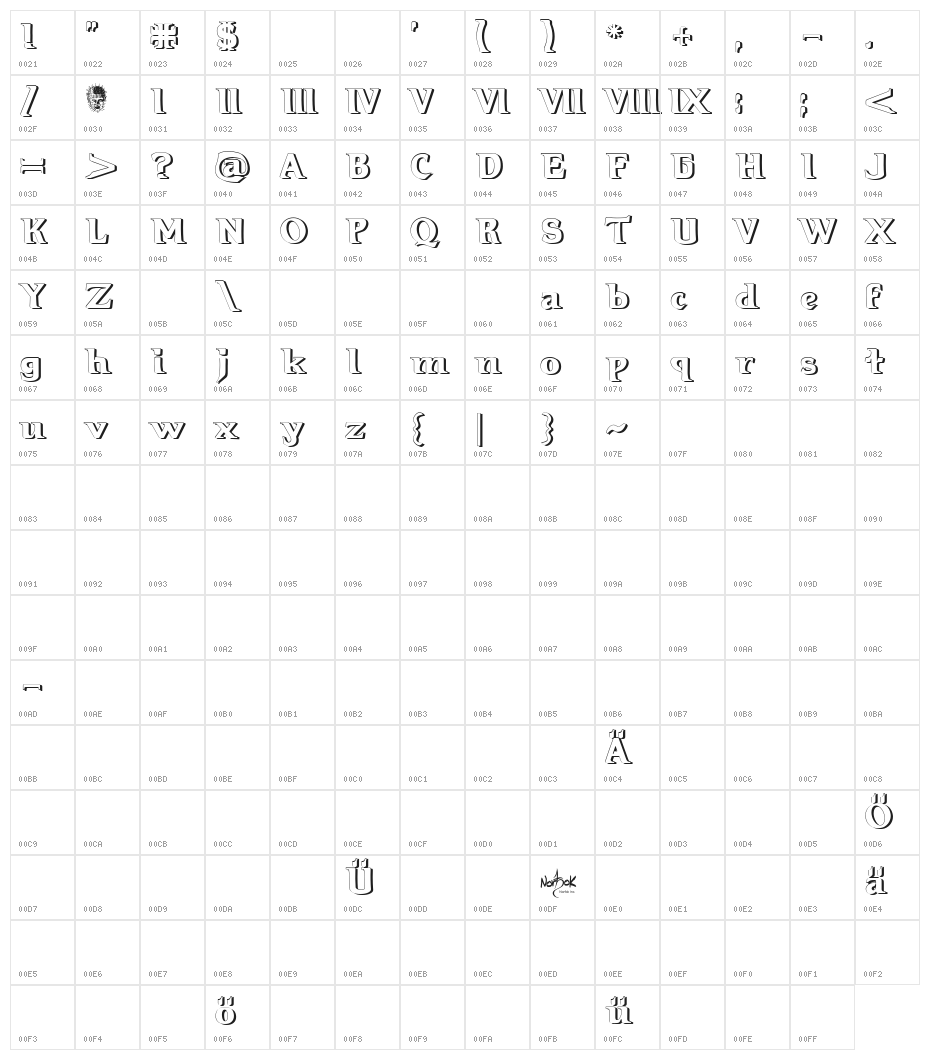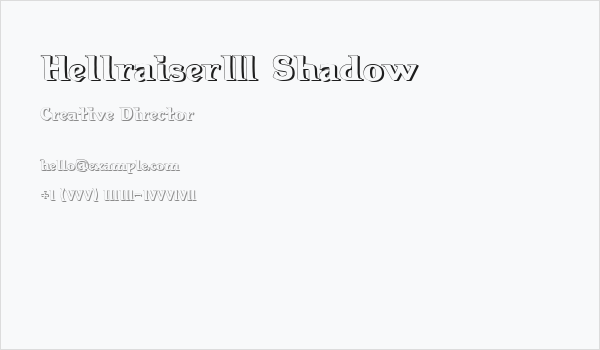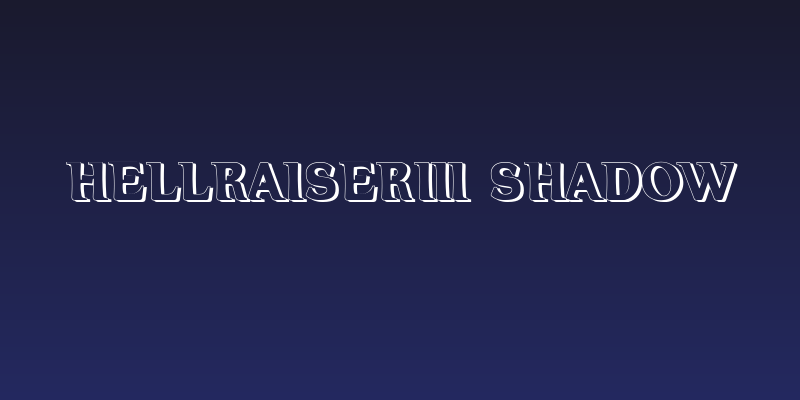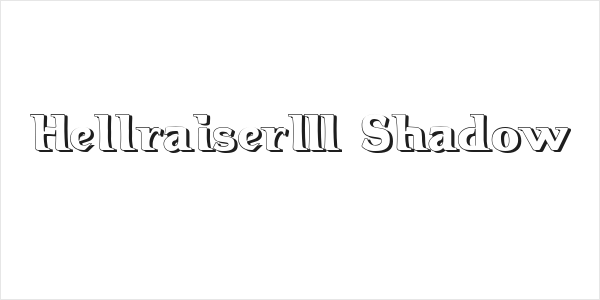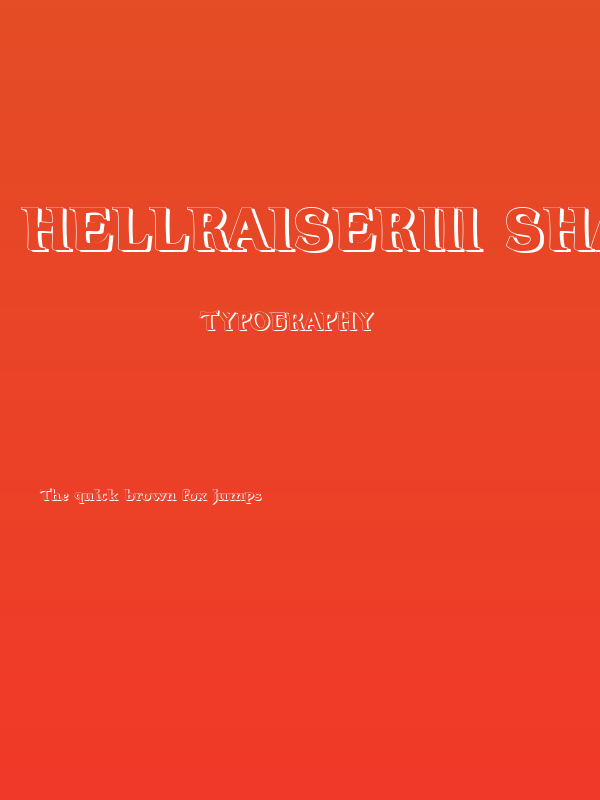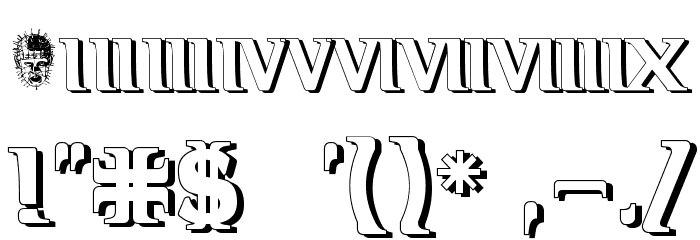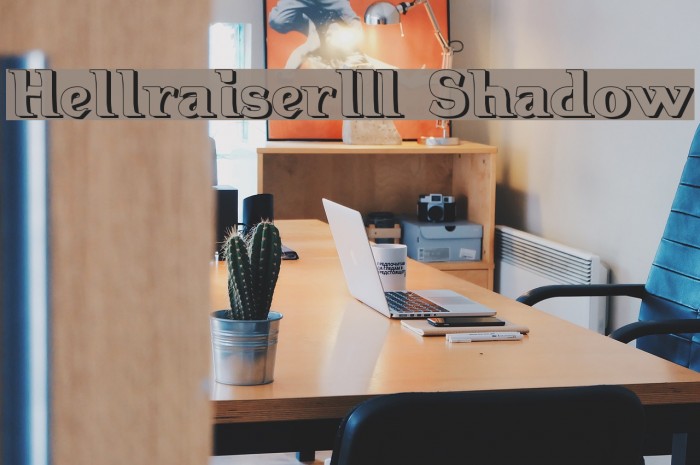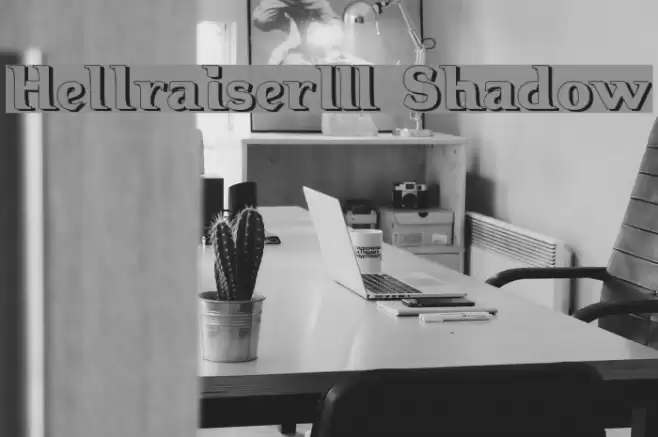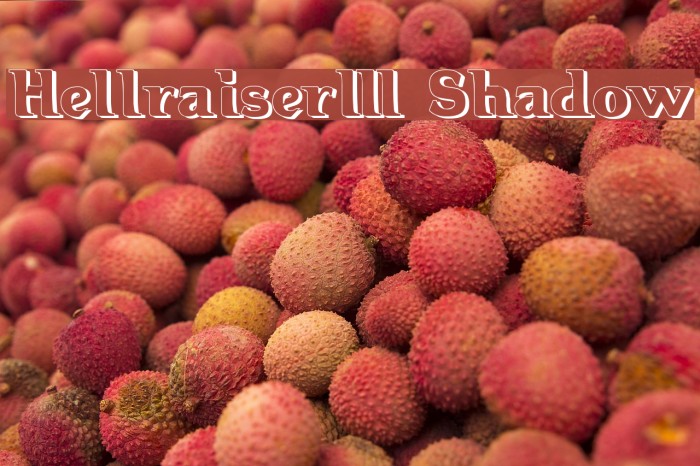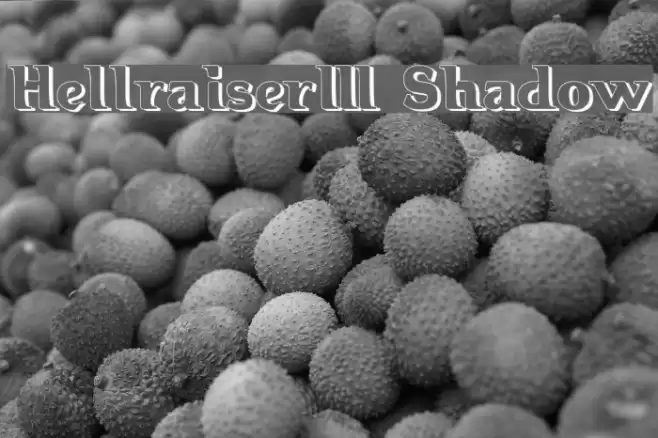
Hellraiser3 Shadow Font
| Projets proposés | Ideal for horror-themed posters, movie titles, Halloween invitations, and any project requiring a dramatic and eye-catching typeface. |